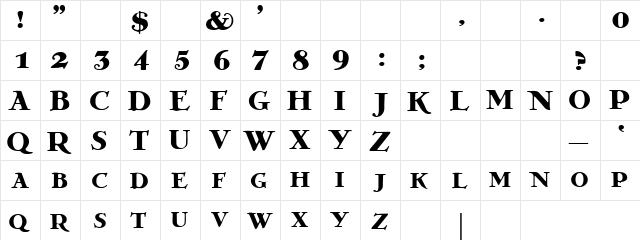
Greko Bold Font Preview
Greko Bold
Design Context for Greko Typeface
Greko takes a measured approach to typography — its balanced proportions and neutral character make it a reliable workhorse for both digital and print work. The heavy weight commands attention and anchors typographic hierarchies.